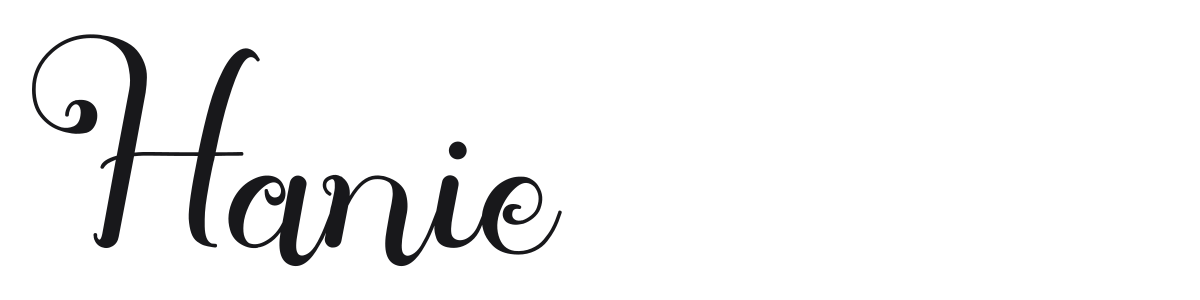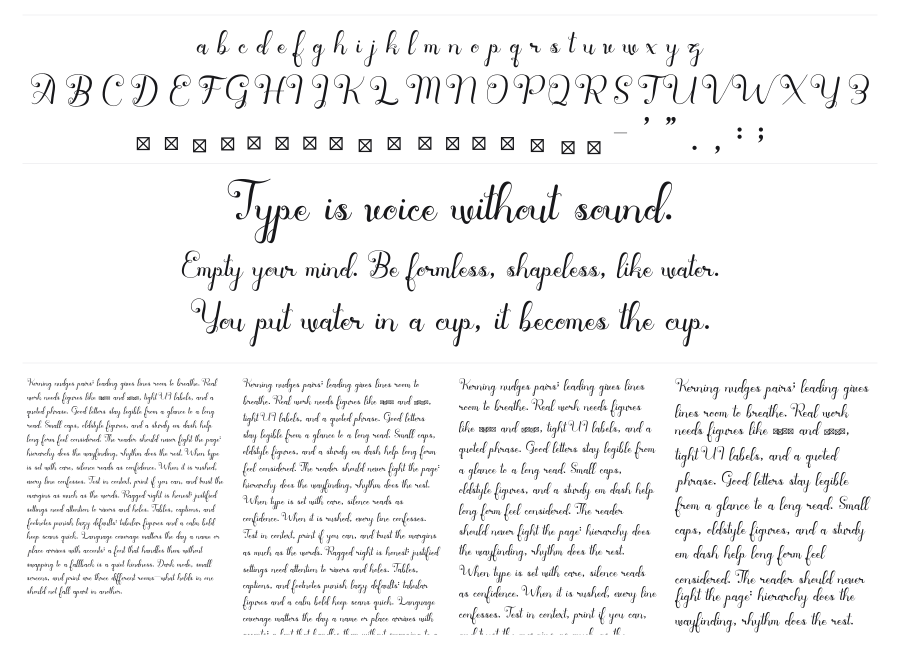
Hanie
Hanie is a casual connected script with flowing loops, swash details, and a warm calligraphic energy. The generous ascenders and decorative connecting strokes give it a lively, handcrafted feel without tipping into formal territory. It suits branding, wedding stationery, packaging, and anywhere a friendly personal touch is needed.